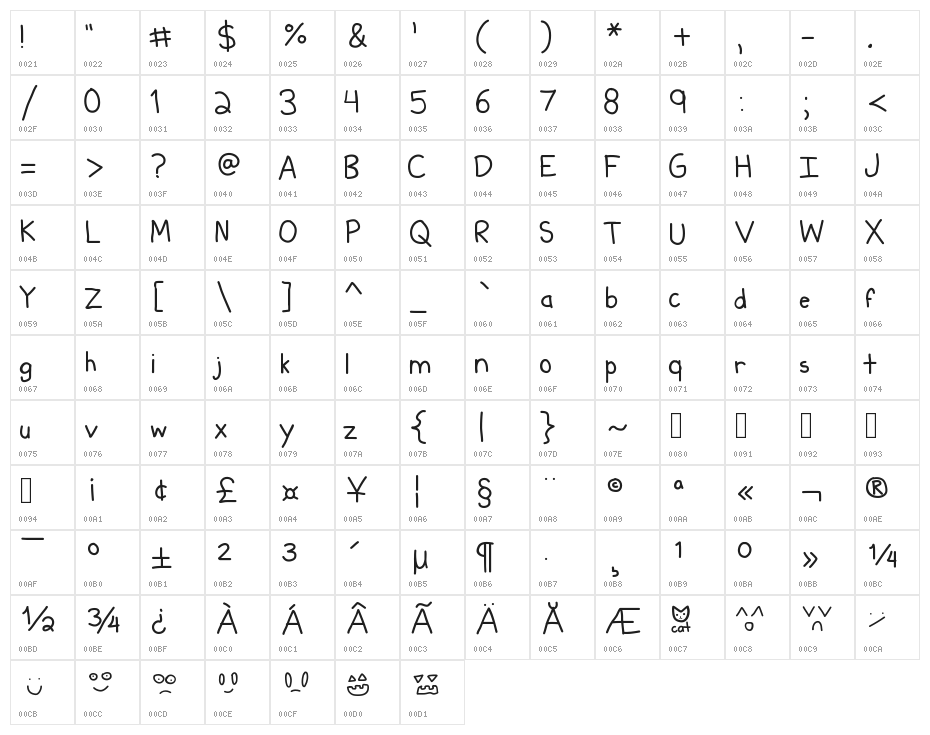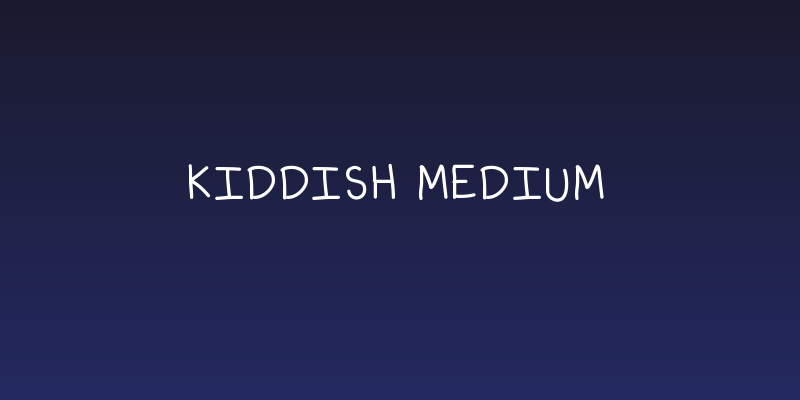
Kiddish Medium Font
Kiddish Medium Description
This playful and whimsical font features a handwritten style that exudes a sense of fun and creativity. The characters are slightly irregular, giving it a charming, informal appearance. The strokes are smooth and rounded, contributing to its friendly and approachable feel. The font maintains consistent line thickness, ensuring readability while retaining its unique character. It is well-suited for projects that aim to convey a lighthearted and youthful vibe.
Matt Bruinooge
| Use Case | Headlines, Logos, Informal text |
| Proposed Projects | Ideal for children's books, playful branding, greeting cards, and educational materials. |